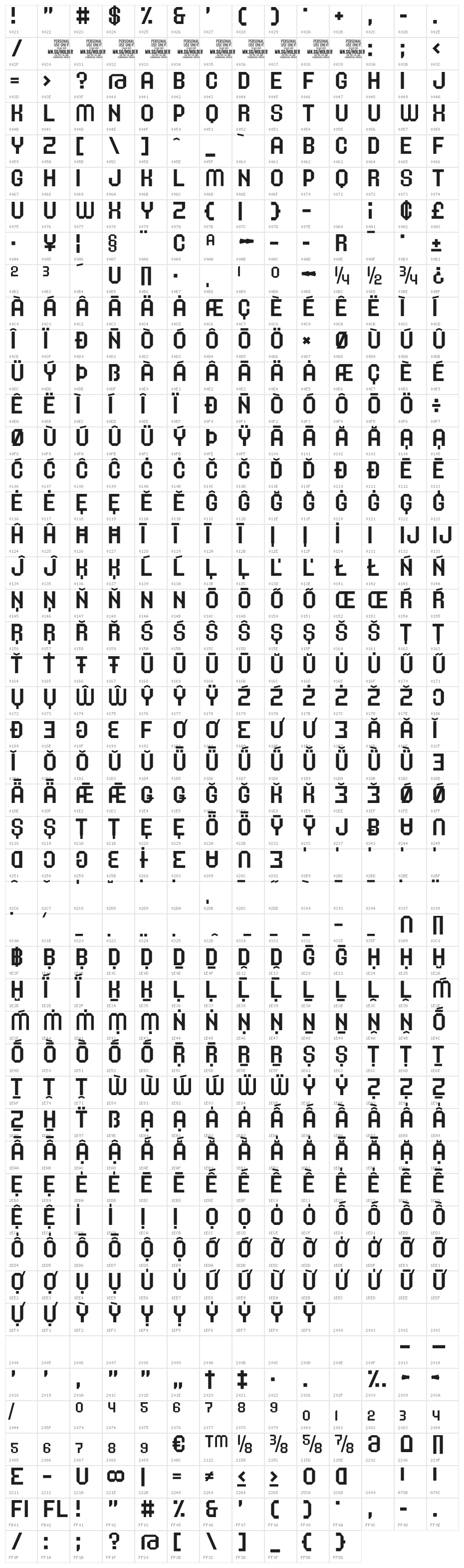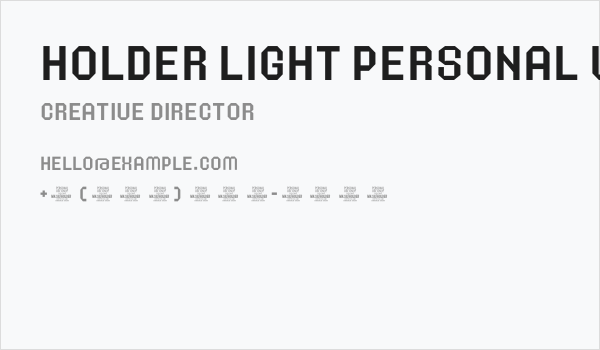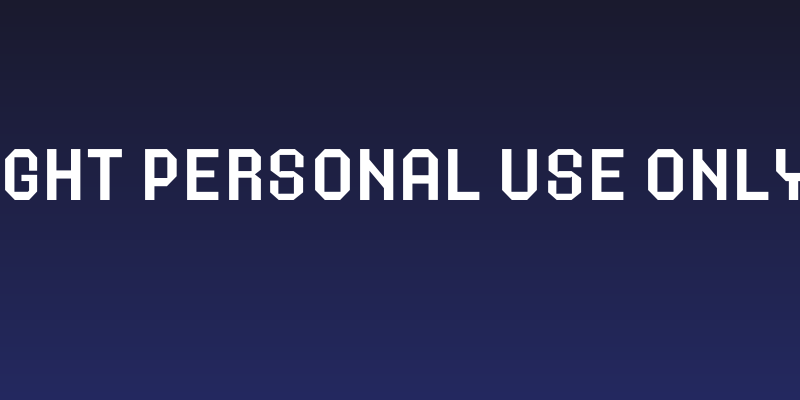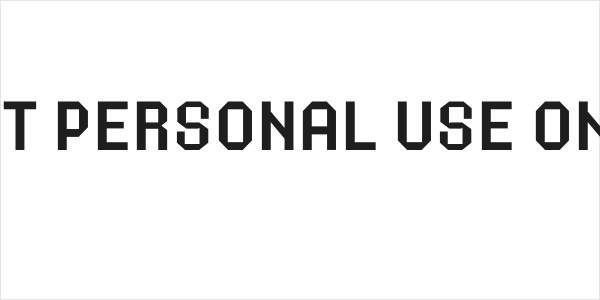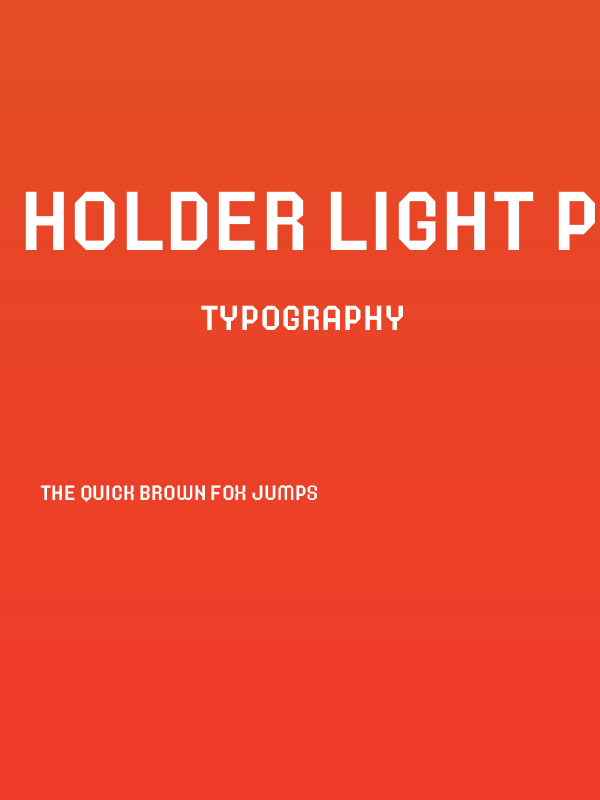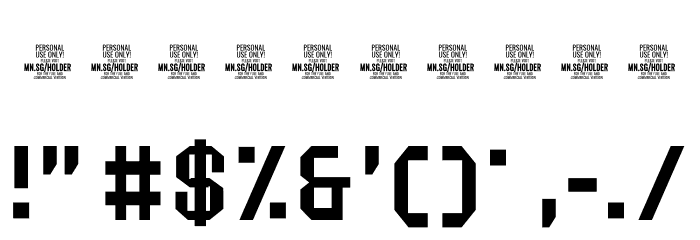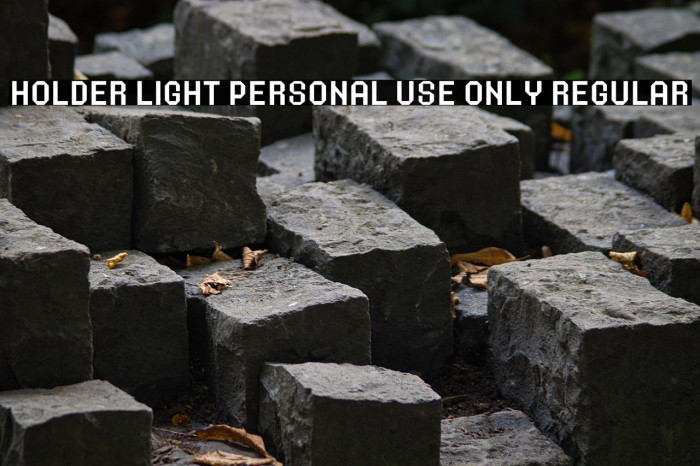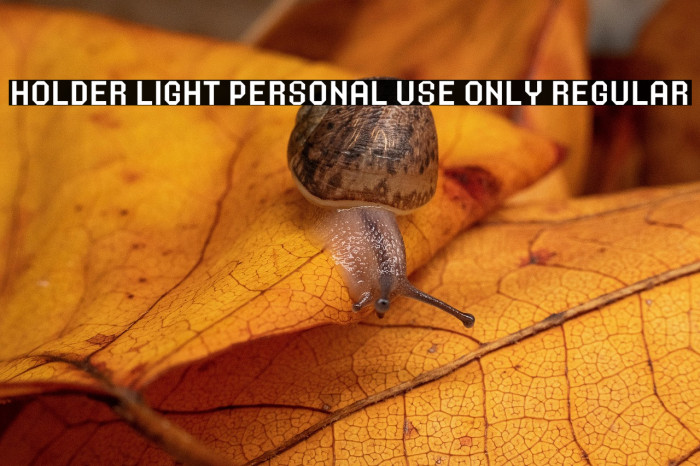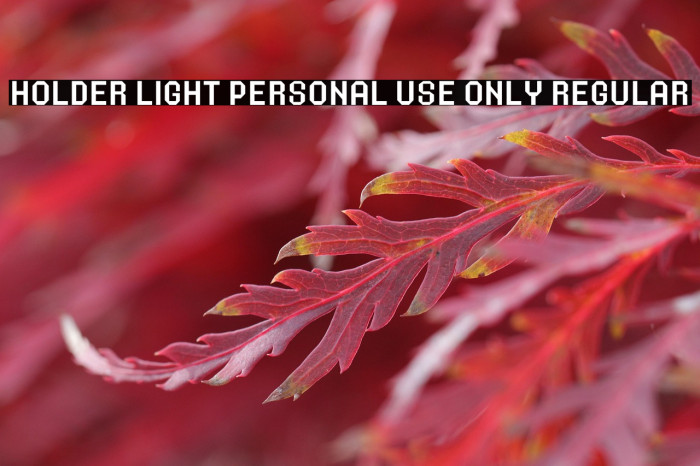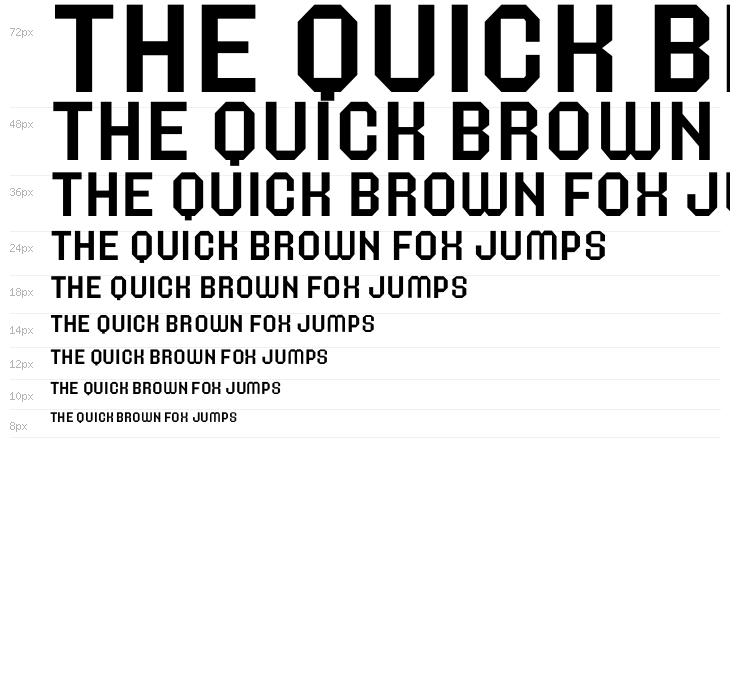
Holder Light PERSONAL USE ONLY Regular Font
Holder Light PERSONAL USE ONLY Regular Description
This font features a bold, geometric design with a modern and industrial feel. The characters are constructed with sharp angles and straight lines, giving it a strong and assertive presence. The uppercase letters are uniform in height, while the lowercase letters maintain a consistent style, enhancing readability. The numbers and special characters follow the same design principles, ensuring a cohesive look across all text. The font's structure is ideal for making a bold statement, with its high contrast and distinct appearance.